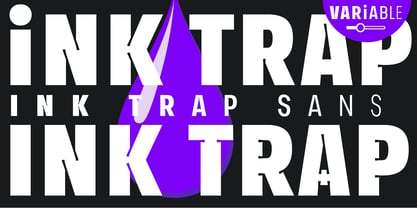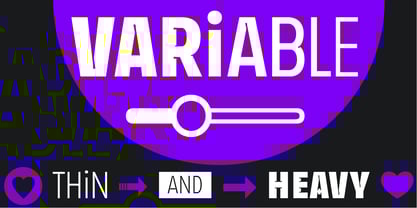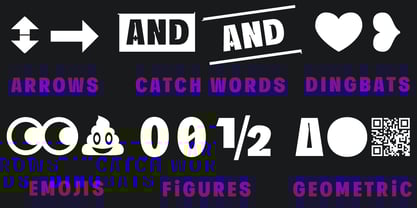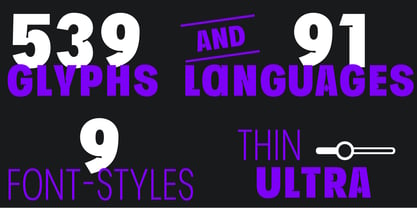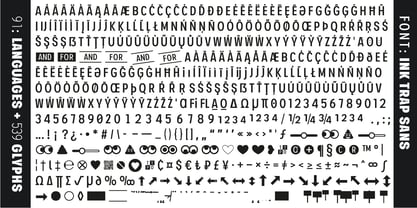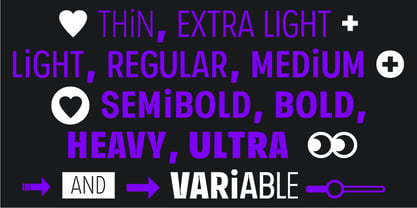
Ink Trap Sans
The Ink Trap Sans Font Family was designed by Manuel Viergutz and published by TypoGraphicDesign. Ink Trap Sans contains 9 styles and family package options.
The variable typeface Ink Trap Sans is designed from 2024–2025 for the font foundry Typo Graphic Design by the type designer Manuel Viergutz.
9 font-styles (Thin, Extra Light, Light, Regular, Medium, SemiBold, Bold, Heavy, Ultra) with 539 glyphs (Adobe Latin 3) incl. decorative extras like icons, arrows, catch words, dingbats, emojis, symbols, geometric shapes (type the word #LOVE for ❤ as OpenType-Feature dlig) and stylistic alternates (2 stylistic sets).
For use in logos, packaging for drinks & food, magazines, posters, advertisement plus as webfont for decorative headlines. The font works best for display size.
■ Font Cate­gory: Variable Sans Serif for head­line size
■ Specials: Capital Letter Sharp S (German Versal Eszett U+1E9E) ẞ, Catchwords like FOR, Emojis like Smiley ☺, Symbols like Heart ♥︎, Variable Sans Serif Font